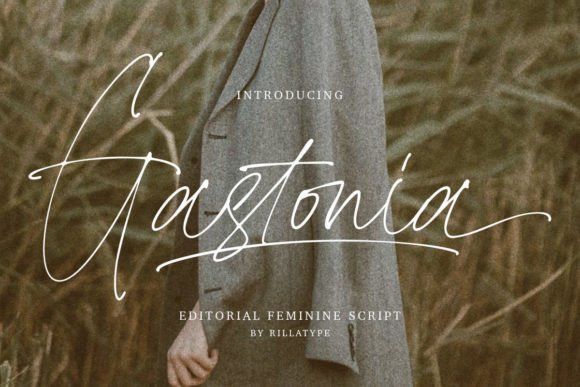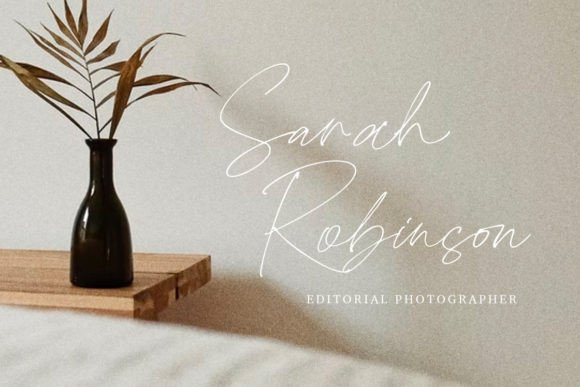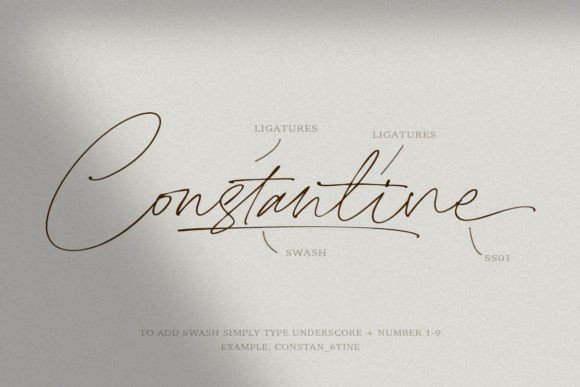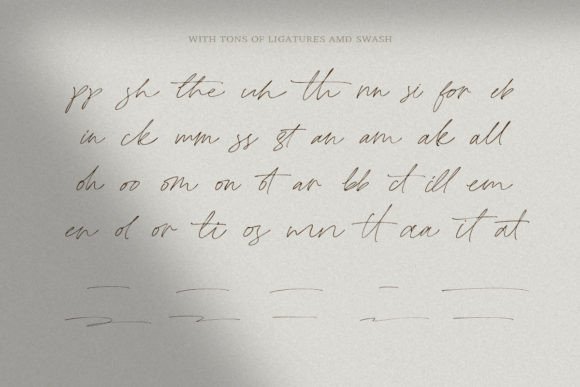
Clandestine is an editorial script font that will give a feminine touch to your designs. This font is perfect for wedding invitations, magazines, stationery or any project that needs a lovely, romantic vibe.
Clandestine Font